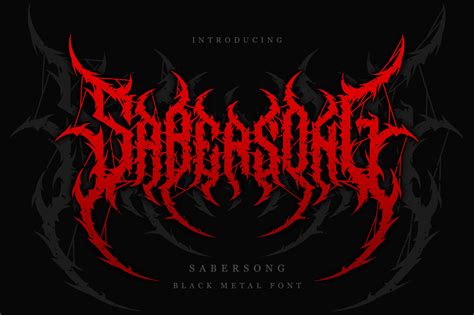
Discover the Power of Aggressive Fonts and How You Can Use Them to Make a Statement!
The Basics of Aggressive Fonts
In the world of typography, aggressive fonts are not just a bold style choice, but a powerful tool to help you make a powerful statement. Aggressive fonts come in a wide variety of shapes, sizes, and styles. They are often used to express anger, fear, aggression, or determination. They are also used to draw attention to a message or to emphasize a certain point. The bolder the font, the more aggressive it appears to be. Examples of aggressive fonts include Impact, Arial Black, and Rockwell.
Types of Aggressive Fonts
Aggressive fonts can be categorized into various types. These include bold, italic, condensed, and decorative fonts. Bold fonts are the most commonly used type of aggressive font. They are characterized by thick and heavy strokes, which make them appear stronger and more powerful. Italic fonts, on the other hand, are slanted and have a more curved appearance. Condensed fonts are narrower and more condensed, which makes them appear more aggressive. Decorative fonts are often used for logos and other types of branding.
Uses of Aggressive Fonts
Aggressive fonts are often used to convey a certain message or emotion. They can be used to emphasize a certain point or to create a sense of urgency. For example, they can be used in headlines or titles to draw attention to a certain message. They can also be used in posters or other types of advertisements to make a statement or to draw attention to a certain product or service. Aggressive fonts can also be used to create a sense of power or authority, as they are often seen as a sign of strength.
The Benefits of Using Aggressive Fonts
Aggressive fonts are a great way to make a statement and to draw attention to a certain message. They can help to create a sense of urgency and to emphasize a certain point. They can also be used to create a sense of power and authority. Additionally, aggressive fonts can help to create a sense of excitement or emotion, which can be beneficial in certain situations.
Examples of Aggressive Fonts
One example of an aggressive font is Impact. This font is characterized by thick and heavy strokes and is often used in headlines or titles to draw attention to a certain message. Another example is Arial Black, which is a bold and condensed font that has a strong and powerful appearance. Finally, Rockwell is another aggressive font that is characterized by curved and sharp strokes, which makes it appear more aggressive.
How to Use Aggressive Fonts
When using aggressive fonts, it is important to use them sparingly. Too much of a good thing can have a negative effect, so it is important to use the font in moderation. Additionally, it is important to consider the context in which the font is being used. For example, an aggressive font may be appropriate for a poster or advertisement, but it may not be suitable for a website or formal document.
Tips for Working With Aggressive Fonts
When working with aggressive fonts, it is important to consider the overall design of the project. For example, a bold font can help to emphasize a certain point, but it should not be used in a way that distracts from the overall design. Additionally, it is important to consider the size of the font. Too small of a font can make it difficult to read, while too large of a font can make it appear too aggressive. It is also important to keep in mind the spacing between letters and words when using an aggressive font.
An Example of Aggressive Fonts in Use
A great example of aggressive fonts in use is the logo for the Marvel Cinematic Universe. The logo features a bold, condensed font with sharp and curved strokes, which makes it appear aggressive and powerful. The font helps to create a sense of excitement and to emphasize the importance of the franchise. This is a great example of how aggressive fonts can be used to make a strong statement.
Final Thoughts on Aggressive Fonts
Aggressive fonts can be a powerful tool to help you make a statement. They can help to create a sense of urgency, power, and authority. However, it is important to use them sparingly and to consider the context in which they are being used. With careful consideration and thoughtful use, aggressive fonts can be a great way to make a statement and to draw attention to a certain message.
Final Message for Blog Visitors
Aggressive fonts can be a great way to make a statement and to draw attention to a certain message. If used thoughtfully, they can be a powerful tool to help you make a powerful statement. By understanding the basics of aggressive fonts and how to use them, you can create designs that are sure to make a lasting impression.